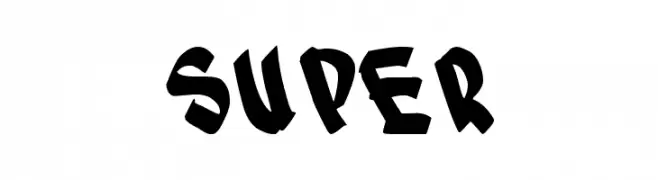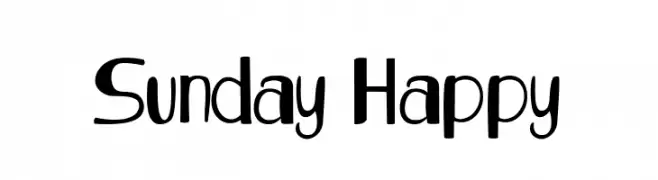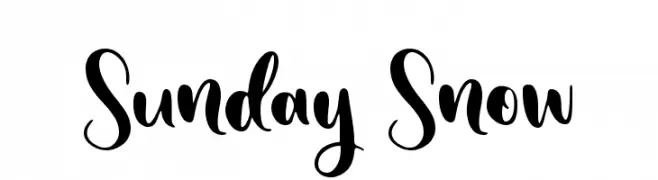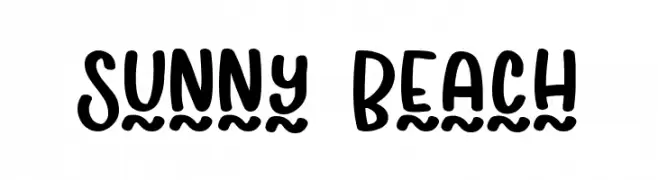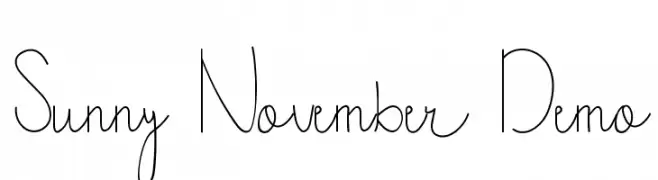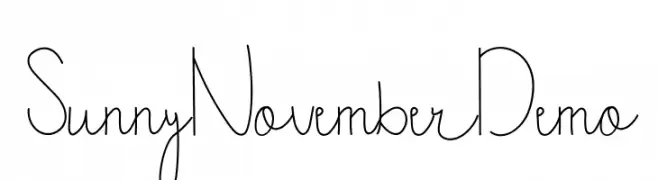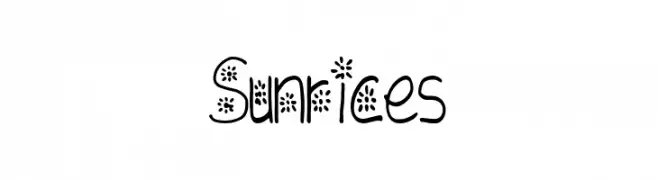
• Sunday Happy
( Fonts by Alfin Ridhowi )
A playful and whimsical font with bold, rounded shapes and a hand-drawn feel.
• Sunday Snow
A playful and whimsical script font with a hand-drawn appearance.
• Sunny Beach
( Fonts by Dm Letter Studio )
Playful and bold handwritten font.
• Sunny November Demo
A whimsical, handwritten font with a playful and modern style.
• Sunny November Demo
A playful, handwritten font with thin, flowing lines and a whimsical style.
• Sunrices
( Fonts by Ditya Ananto )
A playful, decorative font with sunburst patterns in each character.
• Sunset GP
( imagex - www.imagex-fonts.com )
A bold, geometric font with a 3D effect and textured interior.
• SUPER
( Fonts by Rodrigo German - RASDESIGN )
A bold, graffiti-inspired font with sharp, angular edges and dynamic style.
• SUPER GAME
( Fonts by Display Studio )
A bold, angular font with a modern, edgy style.
• Super Retro M54
( Fonts by Mohammed Rahman )
A bold, geometric font with a retro aesthetic, ideal for impactful designs.